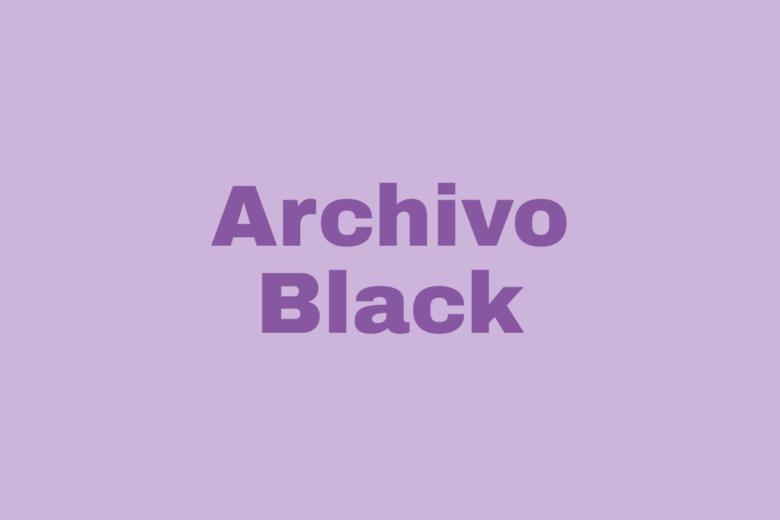
Easter is a time of renewal, joy, and celebration. Whether you’re designing a festive invitation, a church bulletin, or a cheerful social media post, the right font can bring your message to life. From bold and eye-catching to whimsical and warm, Easter fonts help capture the energy, tradition, and excitement of the season.
Some Easter fonts radiate the boldness of Easter morning, declaring joy as confidently as a sunrise service. Others carry a playful, handwritten charm, reminiscent of Easter egg hunts and heartfelt notes tucked into baskets. And for those seeking something sleek and modern, there are typefaces that embrace the fresh start of spring, bringing a contemporary edge to Easter designs.
No matter the style you’re looking for, there’s a font that perfectly expresses the spirit of Easter. Below, we’ve rounded up a collection of 15 happy Easter fonts that bring joy, warmth, and a little bit of Easter magic to any project.
Archivo Black (Use this font)
Easter is a time of bold declarations—of joy, renewal, and unshakable hope—and Archivo Black embodies that spirit in every stroke. This thick, attention-grabbing sans-serif doesn’t whisper; it proclaims. Just like the bright colors of Easter eggs or the resounding chorus of a Sunday morning hymn, Archivo Black stands confident and unwavering, making every word a celebration.
Short Stack (Use this font)
This is much celebration, joy, warmth, and a little bit of whimsy during Easter. Short Stack captures that feeling perfectly, with its friendly, hand-drawn style that feels as inviting as an Easter brunch table filled with treats. Its slightly uneven strokes give it a homemade, heartfelt touch, like a handwritten note tucked inside an Easter basket.
Cutive Mono(Use this font)
Easter is a bridge between the past and the present, a time of reflection and renewal. Cutive Mono carries that same sense of heritage, with its typewriter-inspired design that feels both vintage and enduring. Its evenly spaced, monospaced letters create a steady rhythm, like the familiar verses of an Easter hymn or the careful strokes of a handwritten Easter card passed down through generations.
Limelight (Use this font)
Renewal, joy, and a touch of spectacle. All these things accompany Easter. After all, what could be more exciting than the promise of new beginnings? Limelight captures that spirit with its vintage-inspired, high-contrast letterforms that feel straight out of an old-fashioned marquee. It’s the font that turns every announcement into a grand event, like the excitement of an Easter Sunday parade or the joyful reveal of a long-anticipated Easter egg hunt.
Kranky (Use this font)
Hidden eggs, joyful laughter, and moments of pure delight remind us that Easter is full of surprises. Kranky brings that same playful energy with its wobbly, hand-drawn charm that looks like it hopped straight out of a child’s imagination. It’s a little unpredictable, a little bouncy, and completely full of life, just like the excitement of kids dashing through the grass on an Easter egg hunt.
Just Another Hand (Use this font)
Many heartfelt connections are made on Easter. Shared meals, handwritten notes, and moments of reflection. Just Another Hand feels like a friendly touch, with its informal, handwritten style that brings a sense of closeness and sincerity. It’s the kind of font that feels like a quick note jotted down on a pastel-colored Easter card or a warm message left on the church welcome board.
Stroke Dimention (Use this font)
There’s something magical about the Easter season, with longer days, fresh blooms, and a sense of excitement in the air. Stroke Dimention captures that energy with its sleek, futuristic letterforms that feel dynamic and full of motion. Its angular, high-tech style makes it stand out, like the glow of sunrise on Easter morning or the thrill of a long-anticipated celebration.
Permanent Marker (Use this font)
Nothing says celebration like big, expressive strokes that feel alive with energy. Permanent Marker brings that sense of excitement with its thick, hand-drawn style, as if someone grabbed a marker and scrawled a joyful message across the sky. It’s confident, a little messy in the best way, and impossible to ignore—just like the enthusiasm of kids tearing into Easter baskets or the booming voices of a choir on Easter morning.
Love Ya Like A Sister (Use this font)
Some things in life just feel warm and familiar—like pastel Easter dresses, handwritten notes, and the joy of gathering with loved ones. Love Ya Like A Sister captures that same sense of closeness with its bubbly, hand-drawn letterforms that feel as if they were doodled with love. It’s casual, fun, and full of personality, like a heartfelt message scribbled on a homemade Easter card.
Luckiest Guy (Use this font)
Some fonts just know how to have a good time, and Luckiest Guy is one of them. With its chunky, oversized letters and playful curves, this font is as joyful as a sunny Easter morning. It practically leaps off the page, full of energy and excitement—just like the thrill of an Easter egg hunt or the laughter of kids running through the grass.